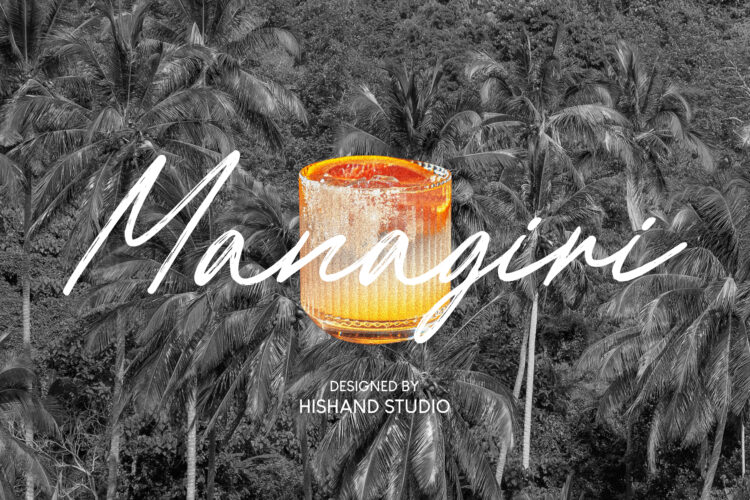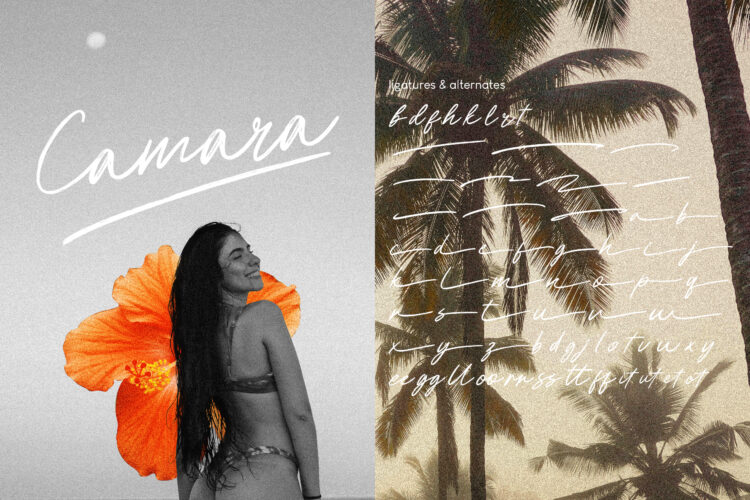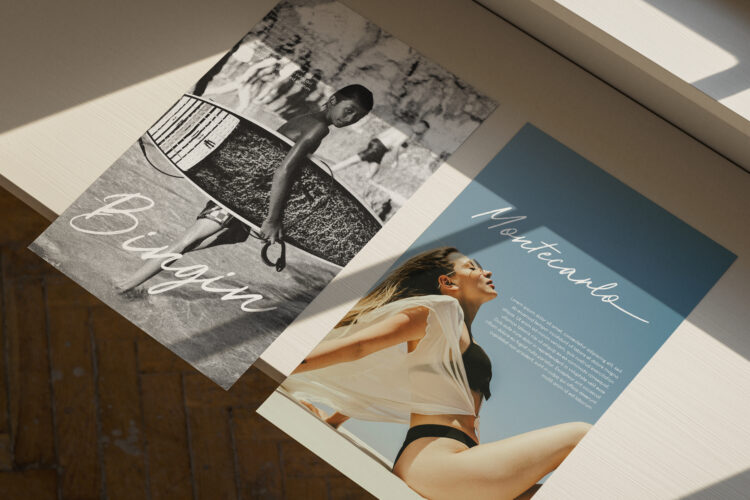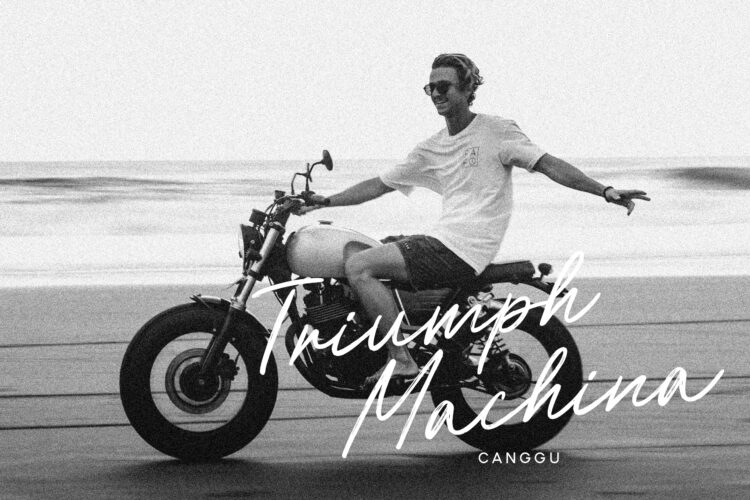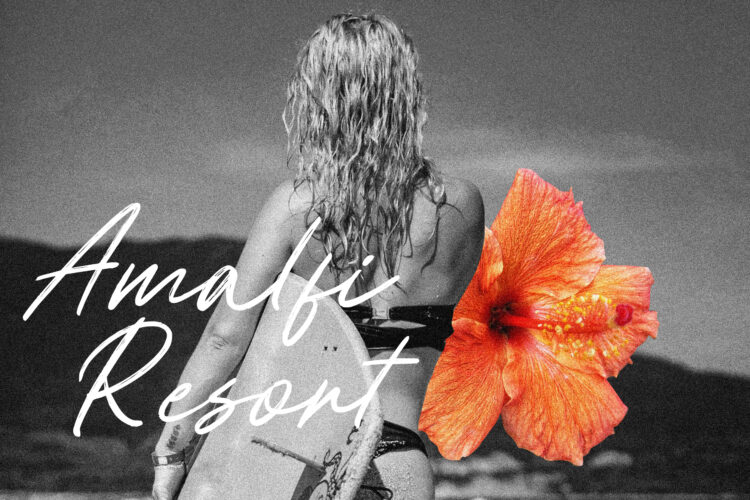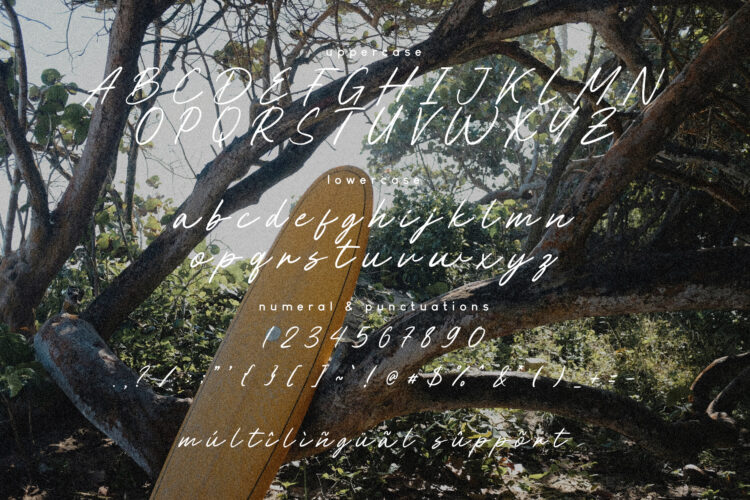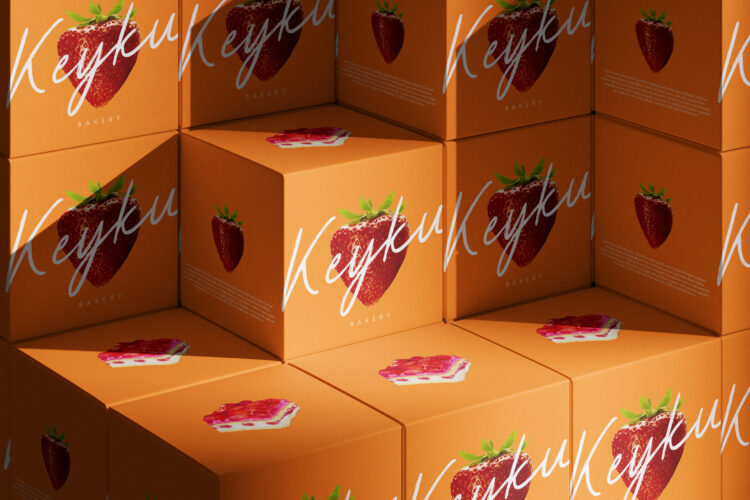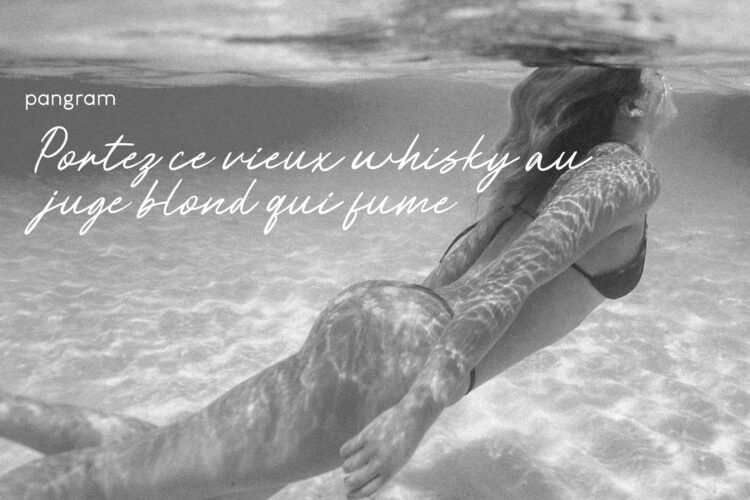
Managiri Aesthetic Brush Font
Managiri Aesthetic Brush Font is a script brush font that captures the spirit of tropical elegance with a relaxed, artistic touch. Designed with flowing strokes and natural brush textures, Managiri brings a sense of warmth, movement, and handcrafted beauty to any design. Each letter is carefully shaped to reflect the rhythm of hand-painted brushwork, creating a style that feels spontaneous yet thoughtfully balanced.
The character forms feature expressive curves and slightly irregular edges, giving the font an authentic hand-painted appearance. These subtle imperfections are intentional, allowing the typeface to feel organic rather than mechanical. Instead of perfectly rigid lines, Managiri embraces the natural variation that occurs when a brush moves across paper. This detail adds personality and charm, making the font feel lively and full of character.
Inspired by tropical landscapes and the relaxed atmosphere of island life, Managiri blends bold brush energy with soft, graceful forms. The strokes often shift between thick and thin, mimicking the pressure of a real brush and adding visual rhythm to the lettering. This contrast gives the typeface a dynamic flow that feels expressive without becoming chaotic.
At the same time, the overall structure of the letters remains balanced and harmonious. Even with its artistic style, Managiri maintains a sense of clarity that keeps words readable and visually pleasing. This careful balance between expressive brush texture and controlled letter construction makes the font versatile for many design applications.
Managiri works beautifully for branding, logos, packaging, social media graphics, posters, and creative headlines. Its tropical aesthetic brings warmth and personality to designs, helping projects feel more inviting and memorable. Whether used for lifestyle brands, beach-inspired visuals, or creative editorial layouts, the font naturally communicates a relaxed yet refined mood.
Because of its handcrafted appearance, Managiri is especially effective in designs that aim to feel personal and authentic. It can easily become the focal point of a composition while still pairing well with simple supporting fonts.
Overall, Managiri Aesthetic Brush Font offers a unique combination of tropical charm, artistic brush movement, and elegant expression. The result is a script font that feels vibrant, aesthetic, and naturally beautiful, making it a strong choice for designers who want to add warmth and character to their work.